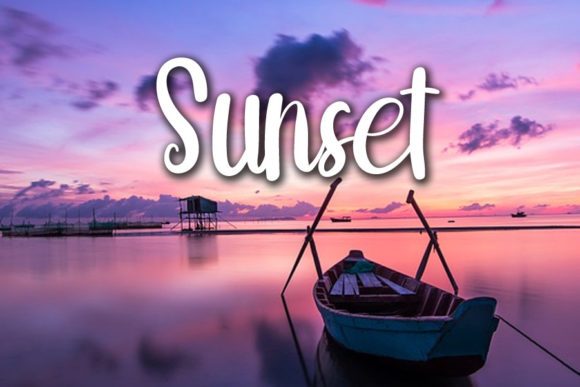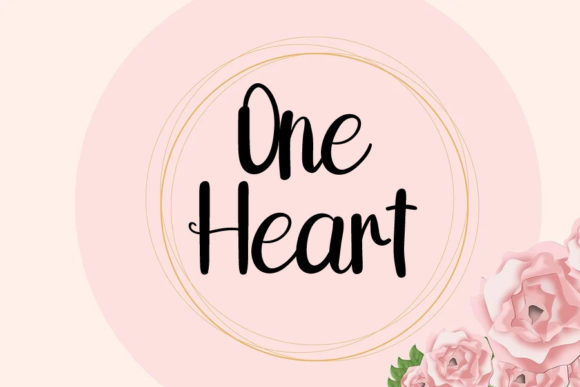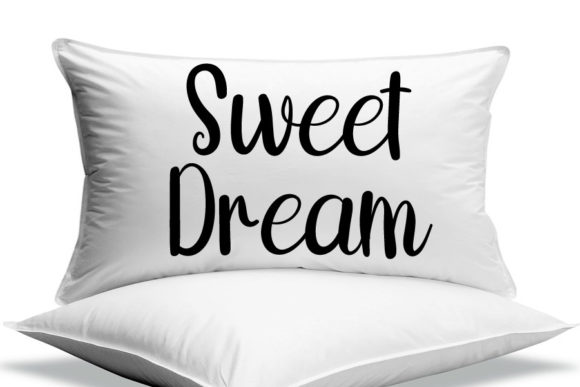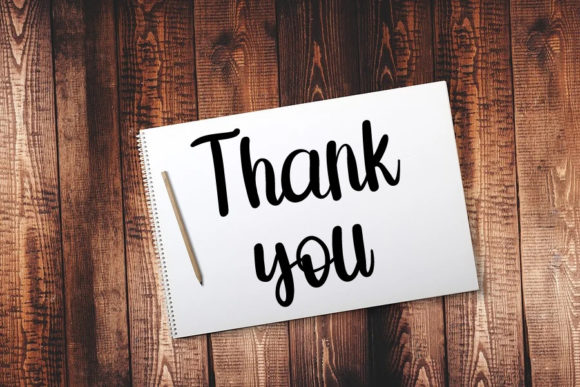
Introducing Heart Font: The Perfect Addition to Your Design Arsenal
Are you tired of using the same old fonts for your design projects? Look no further! Heart Font is here to revolutionize the way you approach typography. This fresh and beautiful font is perfect for designers and crafters looking to add a touch of elegance and uniqueness to their work.
What is Heart Font?
Heart Font is a modern and stylish font that is designed to make your designs stand out. Its clean and simple lines make it perfect for a wide range of applications, from YouTube banners and cover logo mockups to wedding invitations and ID cards. The font’s unique and beautiful design ensures that your work will be noticed and remembered.
Why Choose Heart Font?
So, why should you choose Heart Font for your design projects? Here are just a few reasons:
- Fresh and Beautiful Design: Heart Font boasts a fresh and beautiful design that will add a touch of elegance to your work.
- Versatile: This font is perfect for a wide range of design projects, including YouTube banners, cover logo mockups, wedding invitations, ID cards, flyers, and crafts.
- Simple and Unique: Heart Font’s simple and unique design ensures that your work will stand out from the crowd.
How Can Heart Font Elevate Your Designs?
By using Heart Font in your design projects, you can elevate your work to the next level. Here are just a few ways this font can benefit your designs:
- Enhanced Visual Appeal: Heart Font’s beautiful design will add a touch of elegance and sophistication to your work, making it more visually appealing.
- Improved Brand Identity: By using a unique and stylish font like Heart Font, you can create a strong brand identity that sets you apart from the competition.
- Increased Engagement: Heart Font’s fresh and modern design will grab the attention of your audience and keep them engaged.
Heart Font is perfect for designers and crafters looking to add a touch of elegance and uniqueness to their work. Whether you’re creating:
- YouTube banners and cover logo mockups
- ID cards and badges
- Flyers and brochures
- Crafts and DIY projects
Heart Font is the perfect addition to your design arsenal.